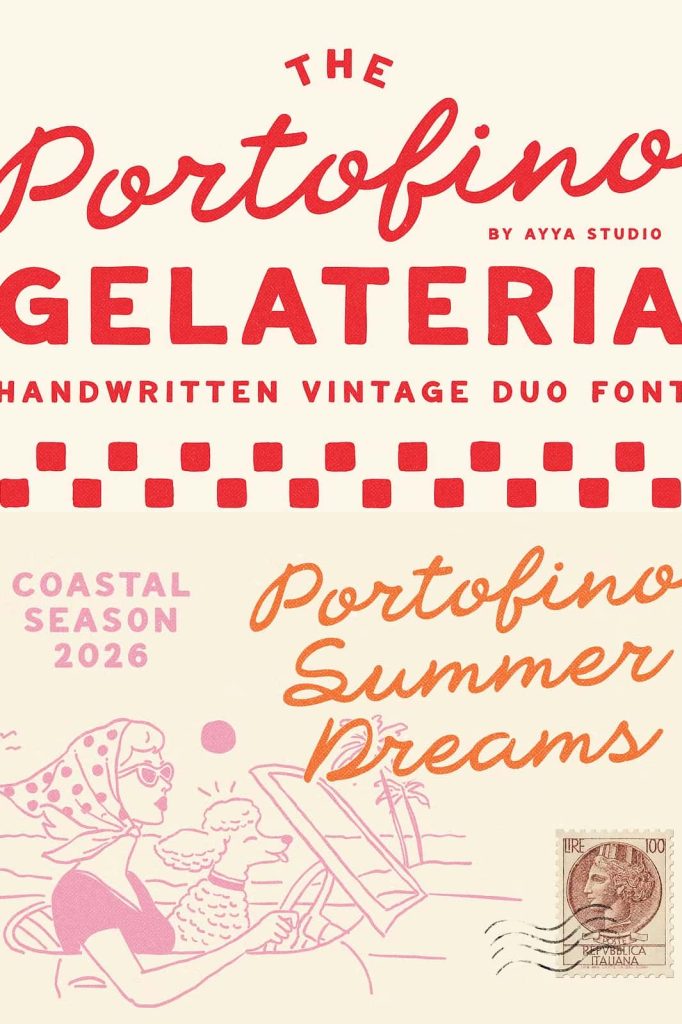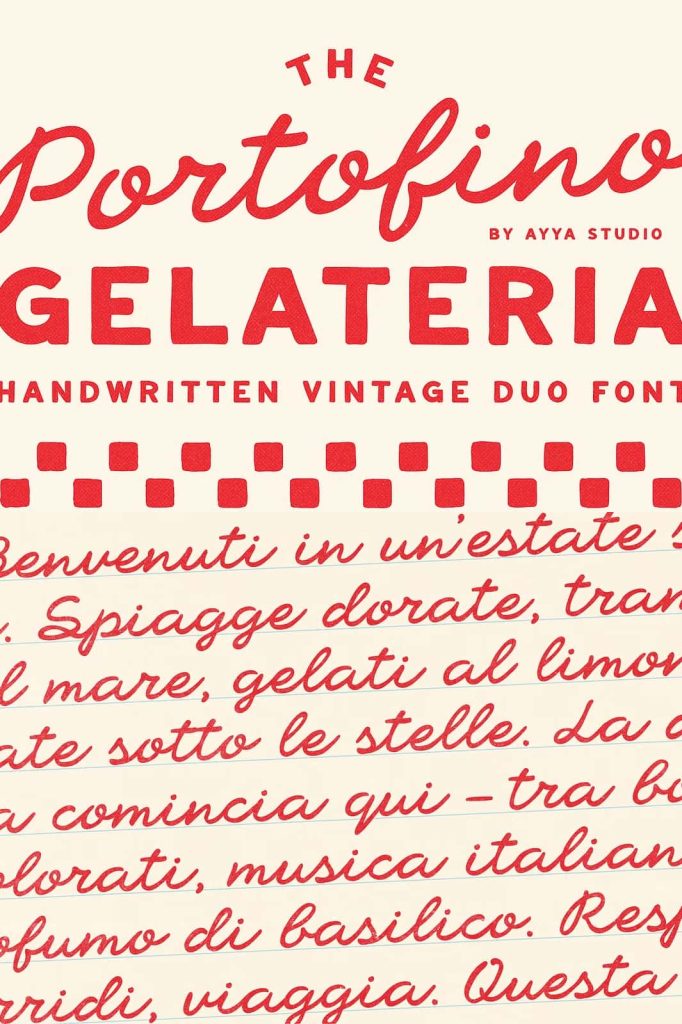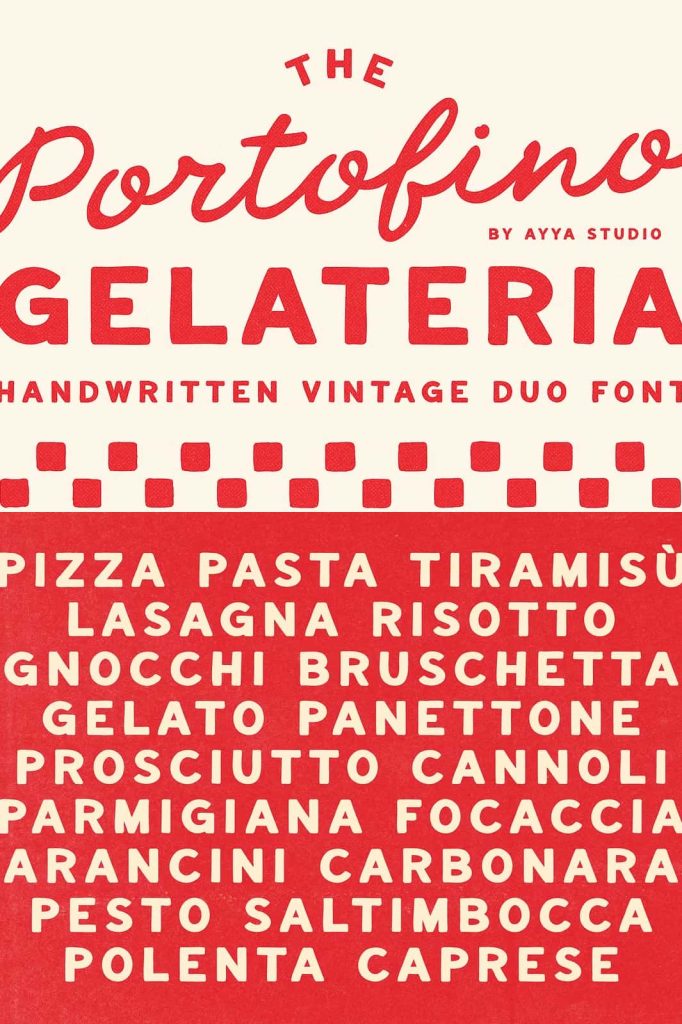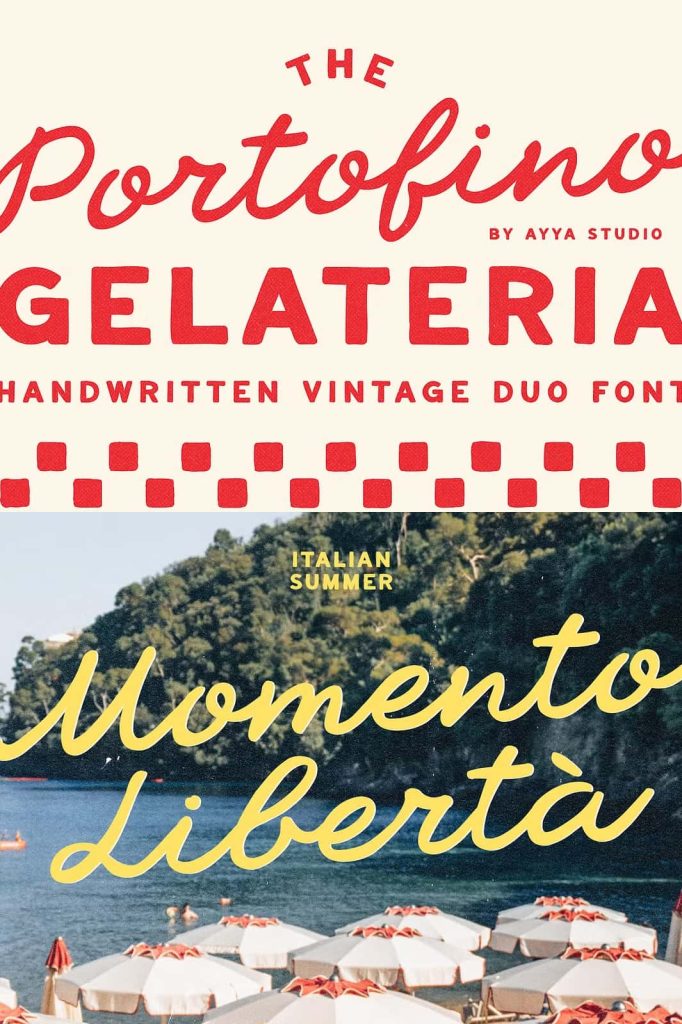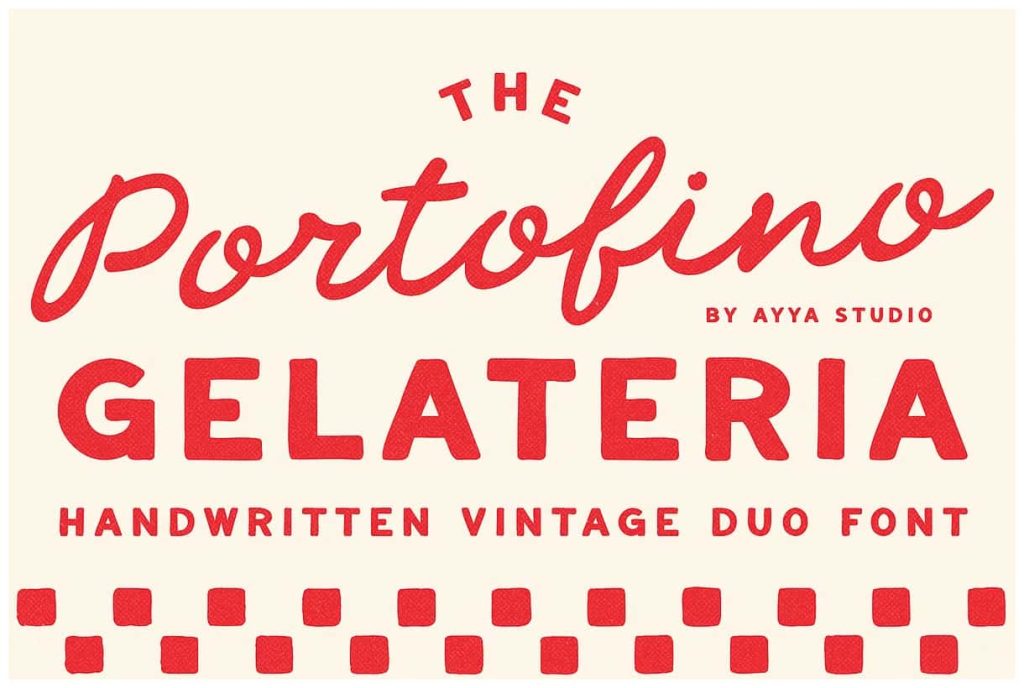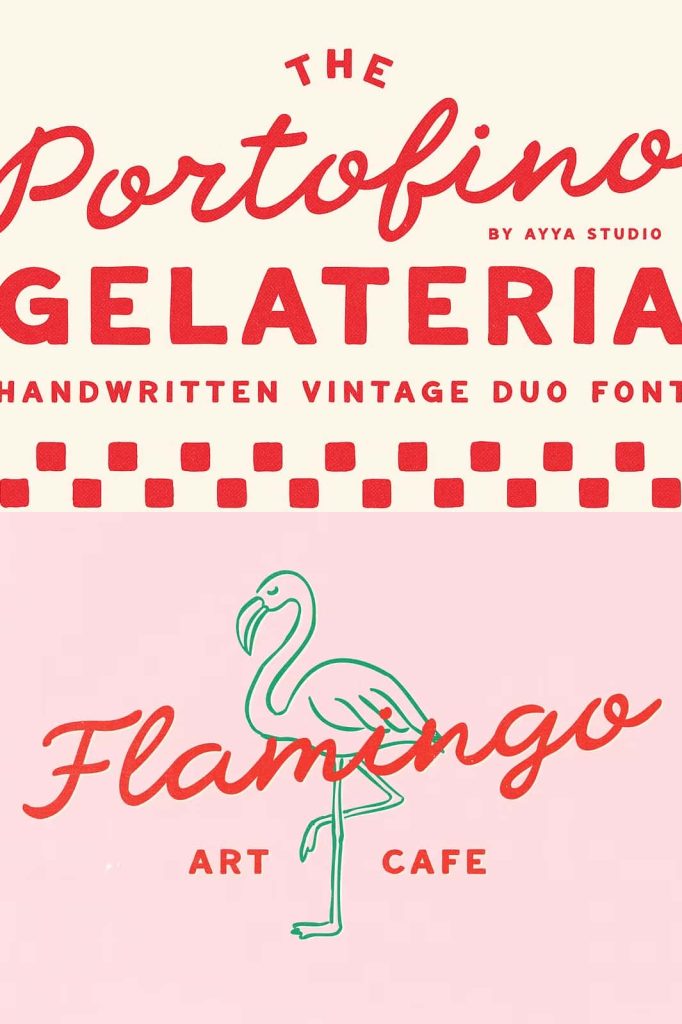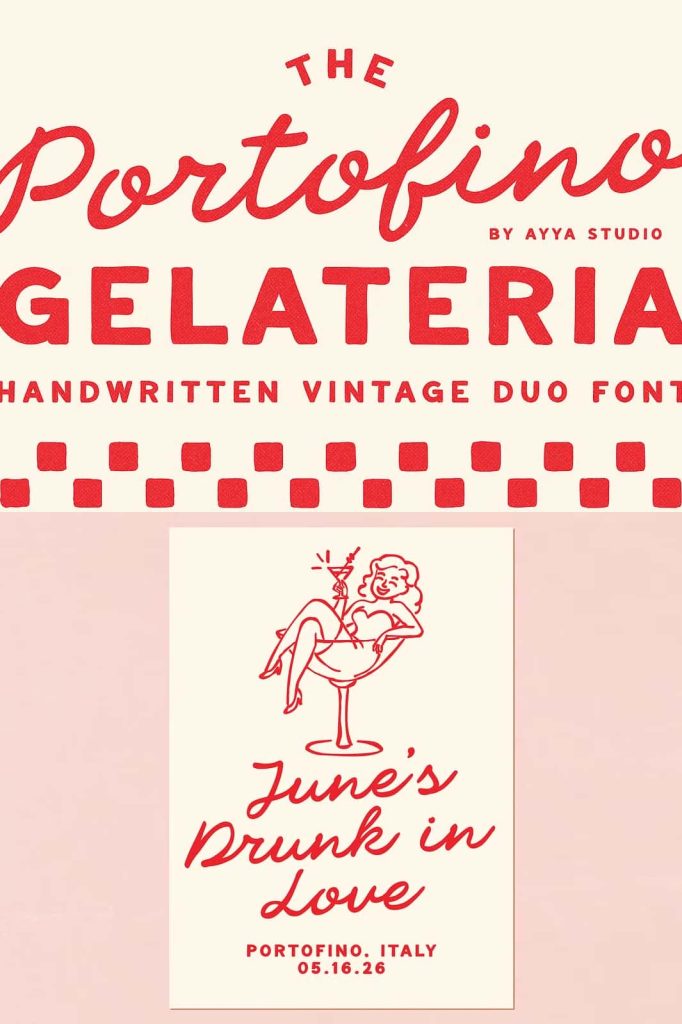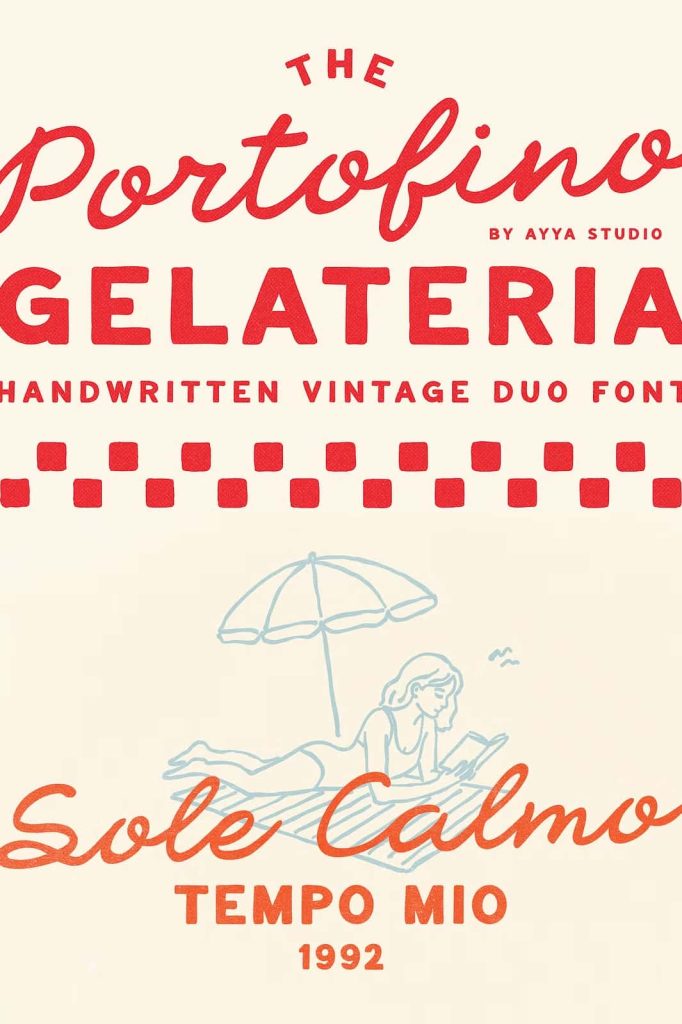
Inspired by an old song about Portofino, that dreamy, sunny tune that instantly takes you to a seaside café with a cold gelato in hand. Portofino Gelateria is a hand-drawn font duo — a lively script paired with a soft, slightly naive sans. Both fonts are 100% handwritten, with all their quirks, uneven lines, and imperfect curves. They have personality, soul, and a touch of nostalgia.